12 Best Free Script Fonts for Designers
Script fonts are beautiful typefaces that mimic handwritten styles, ranging from formal (elegant) to casual (playful). These fonts can be fully connected, semi-connected, or unconnected, depending on the flow between characters.
💡 Perfect for: Invitations, headlines, announcements, advertisements ⚠️ Not recommended for: Long web texts
1. Alex Brush
- Style: Formal calligraphic
- Features: Fully connected, 250+ glyphs
- Designer: TypeSETit
2. Pacifico
- Style: 1950s retro
- Features: Fully connected, 200+ glyphs
- Designer: Vernon Adams
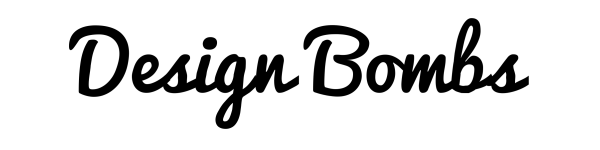
3. Great Vibes
- Style: Elegant and flowing
- Features: Perfect connections, 400+ glyphs
- Designer: TypeSETit
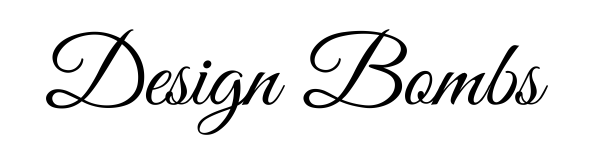
4. Lobster
- Style: Modern and connected
- Features: Smooth transitions, 300+ glyphs
- Designer: Impallari Type
5. Allura
- Style: Relaxed elegance
- Features: 350+ glyphs, more flexible
- Designer: TypeSETit
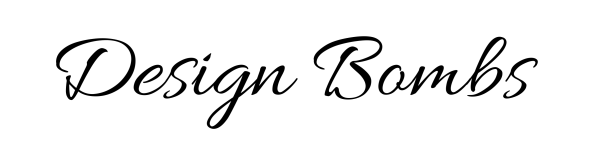
6. Kaushan Script
- Style: Modern calligraphic
- Features: 400+ glyphs
- Designer: –
7. Grand Hotel
- Inspiration: Café Metropole film (1937)
- Style: Casual vintage
- Designers: Brian J. Bonislawsky & Jim Lyles
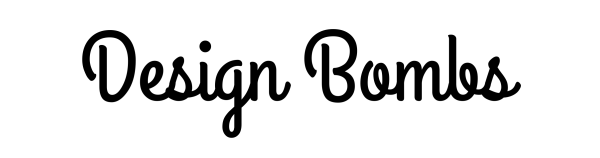
8. Windsong
- Style: Classic calligraphic
- Features: Condensed, 250+ glyphs
- Designer: Bright Ideas
9. Sofia
- Style: Casual semi-connected
- Features: Some characters connect
- Designer: Latinotype
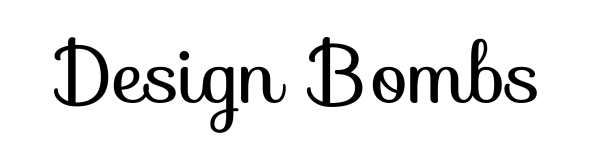
10. Black Jack
- Style: Casual brush
- Features: Only 150+ glyphs
- Designer: Typadelic
11. Lobster Two
- Variant: Lighter version of Lobster
- Styles: 4 variants
- Designer: Impallari Type
12. Dancing Script OT
- Inspiration: 1950s era
- Style: Casual retro
- Designer: Impallari Type
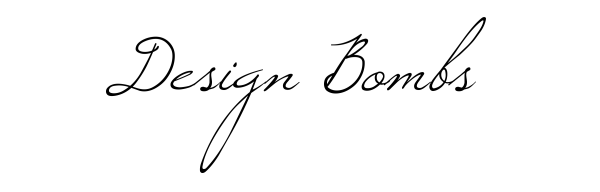
🔍 Usage Tips:
- Use large sizes (24px+)
- Pair with sans-serif fonts for contrast
- Avoid long paragraphs
- Ideal for print designs